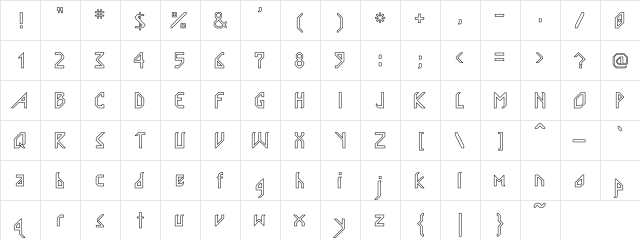
Nordic Hollow Regular
Design Context for Nordic Hollow Typeface
Nordic Hollow takes a measured approach to typography — its balanced proportions and neutral character make it a reliable workhorse for both digital and print work.
Pro Tip: Use Nordic Hollow in both headline and body roles to test its range before committing to a single application.